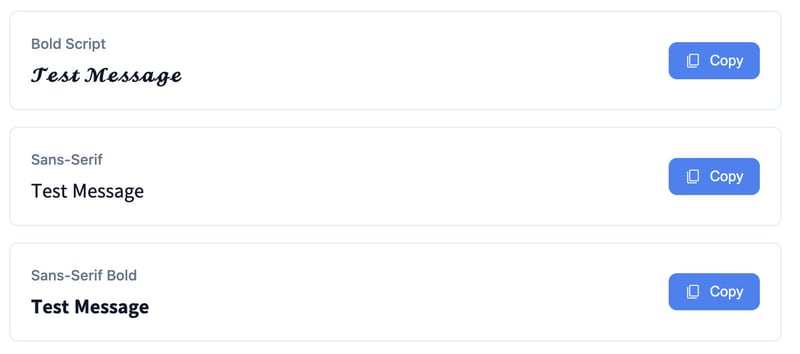
Plain text can feel limiting when creating posts, profiles, or messages that need a more creative touch. Font Generator gives users a simple way to transform ordinary words into over 150 stylish and decorative text variations. With instant conversion and one-tap copying, users can create unique typography for platforms like Instagram, TikTok, and other social channels without needing design software.
The tool offers a range of font styles suitable for bios, captions, usernames, and digital content where personality and visual appeal matter. Instead of manually searching for special characters or formatting options, users can quickly generate eye-catching text ready to share. Font Generator makes creative text styling accessible for anyone looking to add a distinctive look to their online presence. It provides a fast, convenient way to experiment with different lettering styles and bring more creativity to everyday digital communication.
What's Driving This Trend
- Copy-and-paste Typography
- Instantly transferable decorative text formats create new space for lightweight personalization tools that bypass traditional design software.
- Social Bio Customization
- Profile-first visual identity features reflect growing demand for simple creative utilities that help users stand out across crowded social platforms.
- No-code Text Styling
- Browser-based font transformation lowers creative barriers by turning advanced-looking typography into an accessible everyday communication feature.
Who This Affects Most
- Social Media
- Platforms centered on profiles, captions, and short-form content benefit from expressive text utilities that increase user differentiation and engagement.
- Digital Design
- Simplified typography generators signal opportunities for micro-design products that serve casual creators instead of professional software users.
- Creator Tools
- Lightweight content-enhancement services support the expanding creator economy by making distinctive visual expression faster and easier to produce.